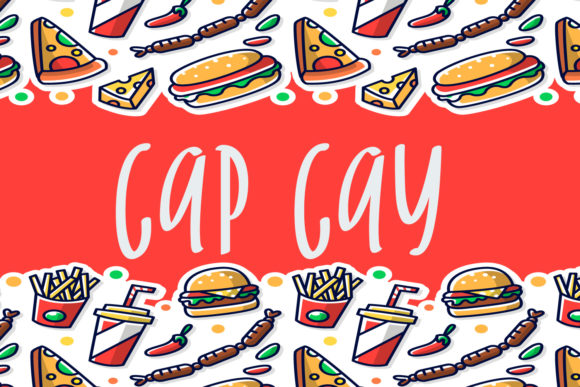
The Ultimate Guide to Cap – Cay Font: A Sweet and Timeless Design Companion
Have you ever been in the middle of a design project, and suddenly, you’re stuck on finding the perfect font? I recall a particularly frustrating experience when a client requested a “friendly and approachable” font for their branding campaign. After scouring through countless font libraries, I stumbled upon Cap – Cay Font, and it instantly became my go-to choice. In this article, I’ll share my love for this beautiful handwritten font, its unique features, and provide a comprehensive guide on how to make the most of it in your designs.
An Honest Review of Cap – Cay Font
So, what makes Cap – Cay Font so special? Here are some aspects that I absolutely love:
• ✨ A sweet and friendly vibe that’s perfect for a wide range of projects, from branding and advertising to crafting and DIY blogs.
• ✅ Incredibly distinct and timeless style that sets it apart from other handwritten fonts.
• 💕 A neat and clean design that’s both elegant and approachable.
Of course, no font is perfect, and Cap – Cay Font has a few minor quirks:
• 🤔 Limited availability of stylistic alternates, which might limit its use in certain design contexts.
• ⚠️ Some users might find the font a tad too delicate for very large-scale or bold designs.
The Backstory of Cap – Cay Font
Cap – Cay Font was designed with the intention of creating a friendly and approachable handwritten font that’s perfect for a wide range of design projects. The designer aimed to craft a font that’s both elegant and playful, with a unique character that sets it apart from other fonts.
What makes Cap – Cay Font unique? Cap – Cay Font’s unique character comes from its sweet and friendly vibe, combined with its incredibly distinct and timeless style.
Is Cap – Cay Font suitable for large-scale designs? While Cap – Cay Font is a delicate font, it can still be used in large-scale designs. However, you might need to adjust the font size and style to achieve the desired effect.